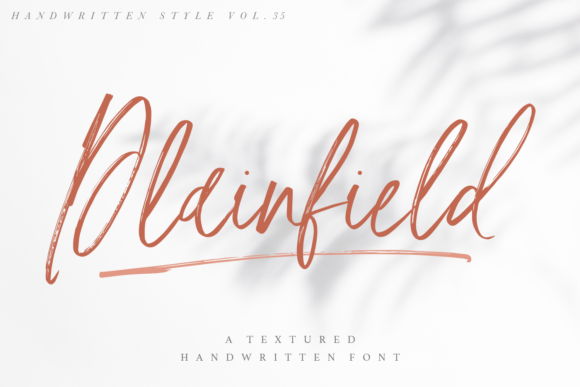
Introducing Plainfield Font: The Ultimate Choice for Elegant and Personalized Designs
In the world of typography, fonts play a crucial role in conveying the tone and personality of a design. When it comes to creating elegant and personalized designs, the choice of font is paramount. This is where Plainfield Font comes in – a relaxed and timeless, brushed handwritten font that has been gaining popularity among designers and crafty enthusiasts alike.
What is Plainfield Font?
Plainfield Font is a beautiful, handcrafted font that exudes a sense of warmth and sophistication. Its unique, brushed strokes give it a distinctive look that is both elegant and approachable. This font is perfect for designs that require a personal touch, such as wedding invitations, thank you cards, quotes, greeting cards, logos, business cards, and more.
Characteristics of Plainfield Font
So, what makes Plainfield Font stand out from the rest? Here are some of its key characteristics:
- Relaxed and Timeless: Plainfield Font has a laid-back, effortless feel to it, making it perfect for designs that require a touch of elegance and sophistication.
- Brushed Handwritten: The font’s brushed strokes give it a unique, handcrafted look that is both personal and inviting.
- Versatile: Plainfield Font can be used for a wide range of designs, from wedding invitations and greeting cards to logos and business cards.
- Elegant and Sophisticated: The font’s elegant strokes and sophisticated look make it perfect for designs that require a touch of luxury and refinement.
Uses of Plainfield Font
Plainfield Font is an incredibly versatile font that can be used for a wide range of designs. Here are some of the most popular uses of this beautiful font:
- Wedding Invitations: Plainfield Font is perfect for wedding invitations, adding a touch of elegance and sophistication to your special day.
- Thank You Cards: The font’s personal and inviting look makes it ideal for thank you cards, allowing you to express your gratitude in style.
- Quotes: Plainfield Font is perfect for quotes, adding a touch of elegance and sophistication to your favorite sayings and phrases.
- Greeting Cards: The font’s versatile look makes it suitable for greeting cards of all kinds, from birthday cards to holiday cards.
- Logos: Plainfield Font can be used to create beautiful, elegant logos that perfectly capture the essence of your brand.
- Business Cards: The font’s professional look makes it perfect for business cards, allowing you to make a great impression on your clients and colleagues.
Why Choose Plainfield Font?
So, why should you choose Plainfield Font for your next design project? Here are just a few reasons:
- Unique and Personal: Plainfield Font has a unique, handcrafted look that adds a personal touch to your designs.
- Elegant and Sophisticated: The font’s elegant strokes and sophisticated look make it perfect for designs that require a touch of luxury and refinement.
- Versatile: Plainfield Font can be used for a wide range of designs, making it a great addition to your font collection.
- Easy to Read: The font’s clear and legible strokes make it easy to read, even at small sizes.
Tips for Using Plainfield Font
Here are a few tips for using Plainfield Font in your designs:
- Pair it with Other Fonts: Plainfield Font pairs well with other fonts, so don’t be afraid to experiment with different combinations.
- Use it for Headings: The font’s elegant strokes make it perfect for headings and titles.
- Add a Personal Touch: Use Plainfield Font to add a personal touch to your designs, such as a handwritten note or a quote.
- Experiment with Colors: The font’s versatile look makes it suitable for a wide range of colors, so don’t be afraid to experiment with different color schemes.
In conclusion, Plainfield Font is a beautiful, handcrafted font that is perfect for designs that require a personal touch. Its unique, brushed strokes give it a distinctive look that is both elegant and approachable. With its versatility, elegance, and sophistication, Plainfield Font is a great addition to any font collection.
- What is Plainfield Font? Plainfield Font is a relaxed and timeless, brushed handwritten font.
- What is Plainfield Font used for? Plainfield Font is perfect for designs that require a personal touch, such as wedding invitations, thank you cards, quotes, greeting cards, logos, business cards, and more.
- Is Plainfield Font easy to read? Yes, Plainfield Font is clear and legible, making it easy to read even at small sizes.